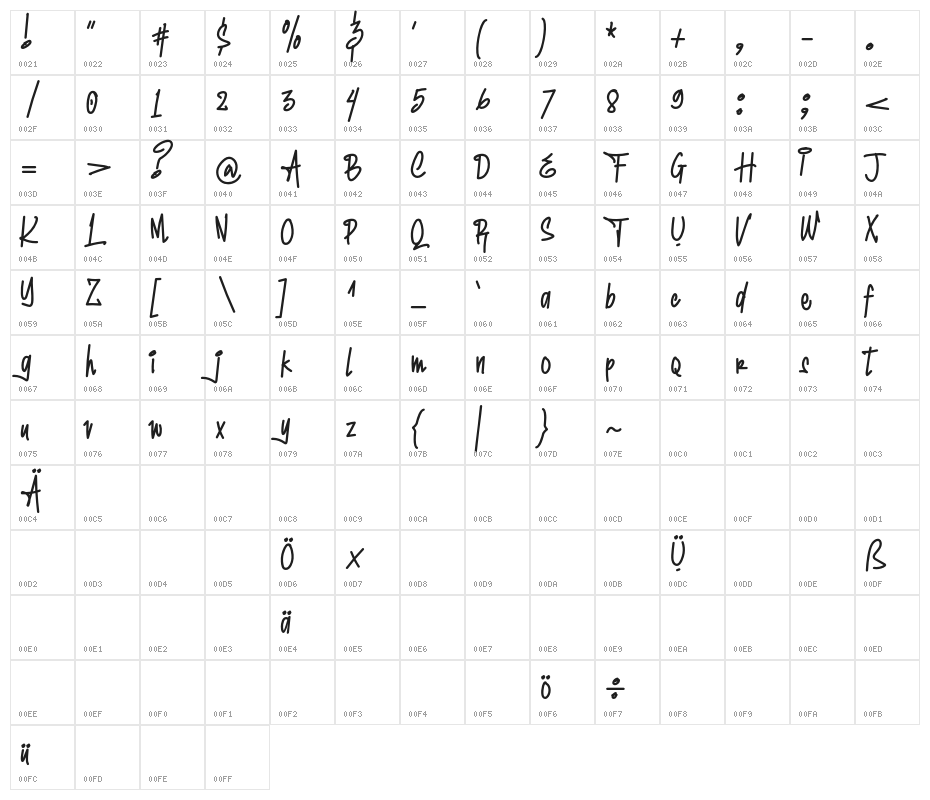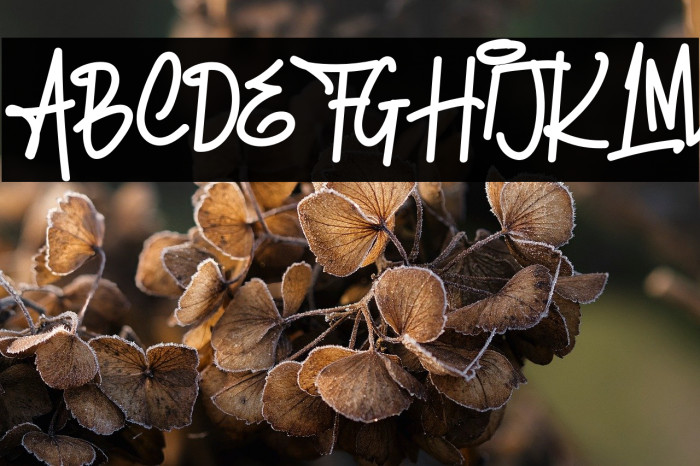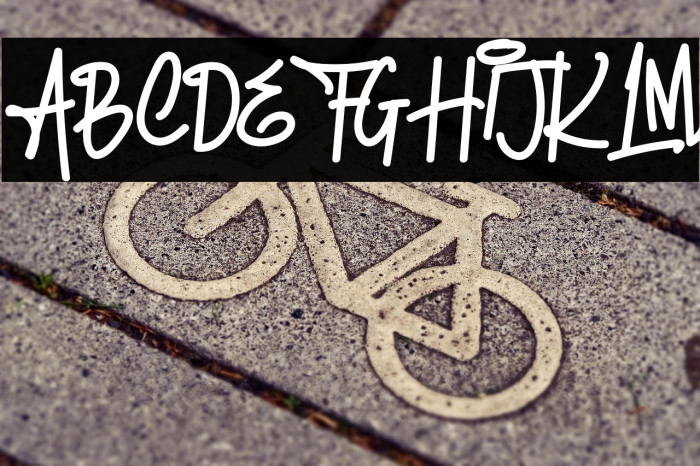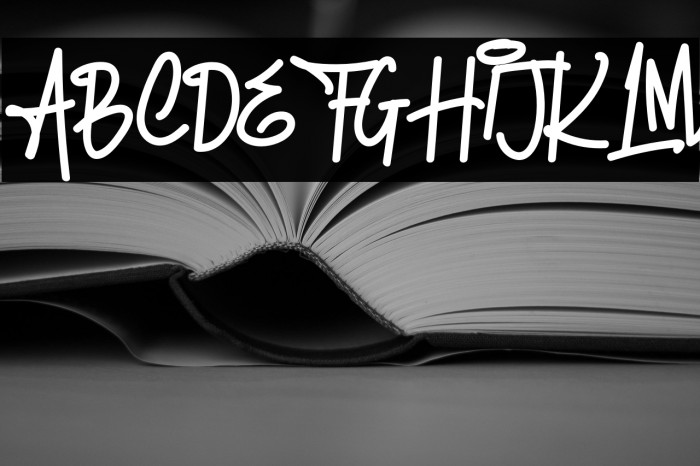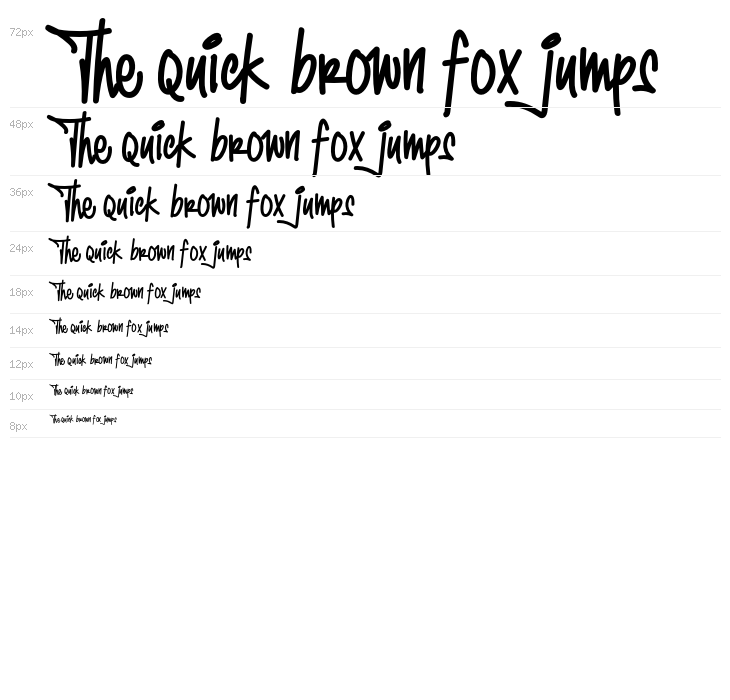
MyFox Font
MyFox Description
This font exhibits a dynamic and energetic handwritten style, characterized by its bold and expressive strokes. The uppercase letters are tall and slightly slanted, giving a sense of movement and fluidity. The lowercase letters maintain a consistent style, with a playful and informal appearance. Numbers and special characters follow the same lively design, making the font suitable for creative and informal applications. The overall look is modern and artistic, with a touch of spontaneity that adds personality to any text.
| Overall Style | Modern, Decorative |
| Proposed Projects | Ideal for creative projects such as posters, invitations, branding, and social media graphics where a personal and artistic touch is desired. |